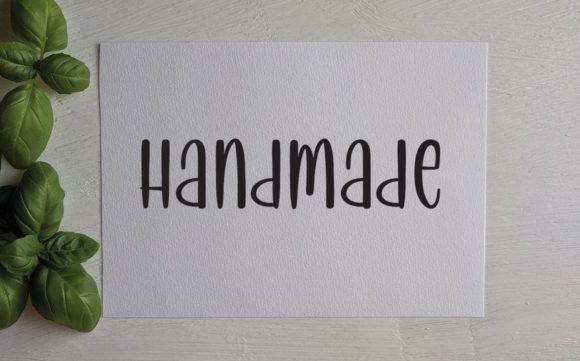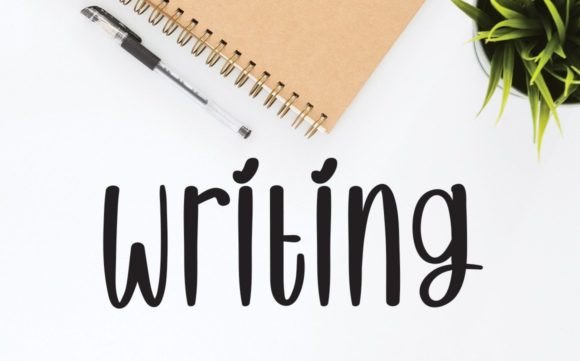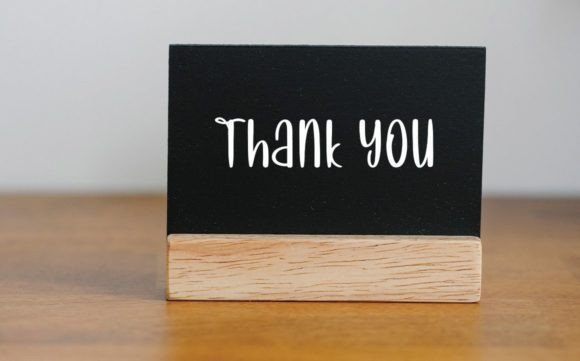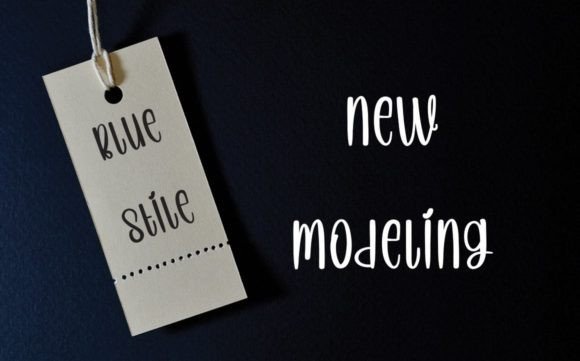
Cupcake Font
About Cupcake Font
“Cupcake” is not just a font; it’s a beautiful and flowing handwritten typeface crafted to bring elegance to a wide array of creative projects. With its graceful strokes and charming design, this font is perfect for a variety of applications, making it a versatile choice for your design needs.
Imagine “Cupcake” adorning your wall displays, adding a touch of sophistication to wedding invitations, and creating eye-catching social media post logos. Its versatility extends to advertisements, product packaging, product designs, labels, photography watermarks, invitations, stationery, and any project where impressive typography is a must.
Envision “Cupcake” becoming an essential part of your design toolkit, contributing its flowing and beautiful script to elevate the visual appeal of your creations. The handwritten style adds a personal touch, making your text stand out with a touch of charm and elegance.
For projects that demand a balance of beauty and flow, “Cupcake” stands out as a font that delivers both. Its flowing design brings a timeless and sophisticated aesthetic, suitable for a range of creative endeavors.
In any context that requires beautiful and flowing handwritten typography, “Cupcake” is the typeface that brings a touch of elegance. Let it be the key element that transforms your designs, making them more visually appealing and memorable.
Whether you’re working on digital or print designs, “Cupcake” is a font that brings a sense of beauty and flow. Let it be the font that adds that special touch to your wall displays, wedding invitations, social media posts, and various other creative projects.
Let “Cupcake” be the font that infuses your designs with beautiful, flowing handwritten elegance, turning them into visually stunning expressions. Embrace its charm, and watch it bring a new level of sophistication to your creative endeavors.